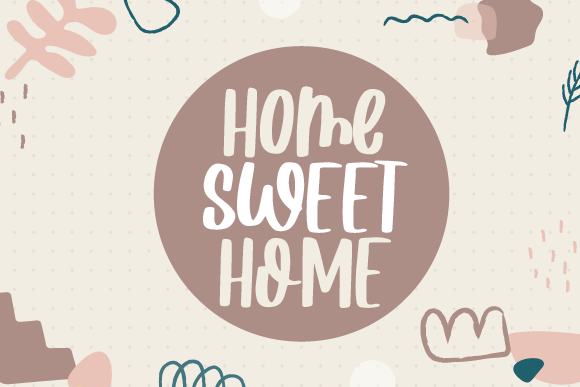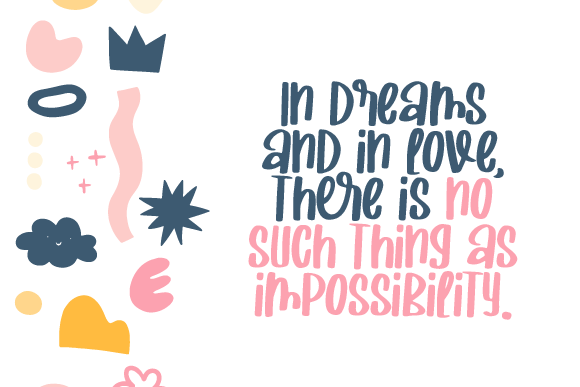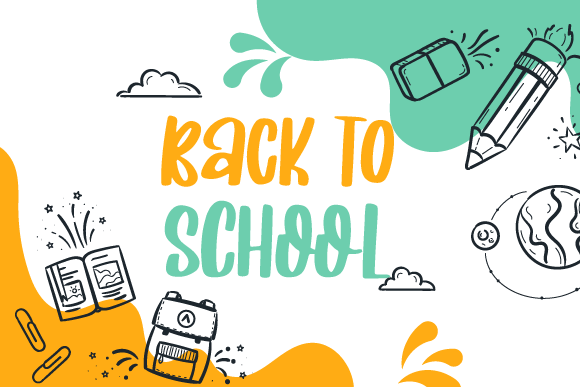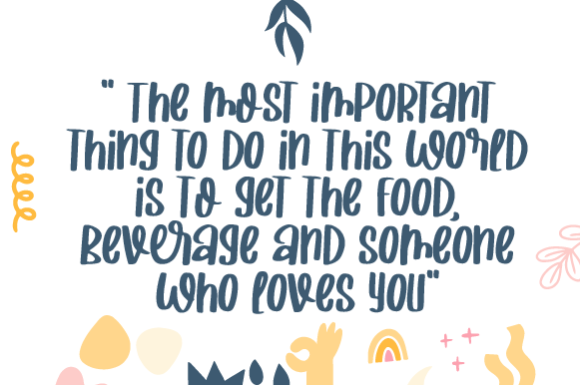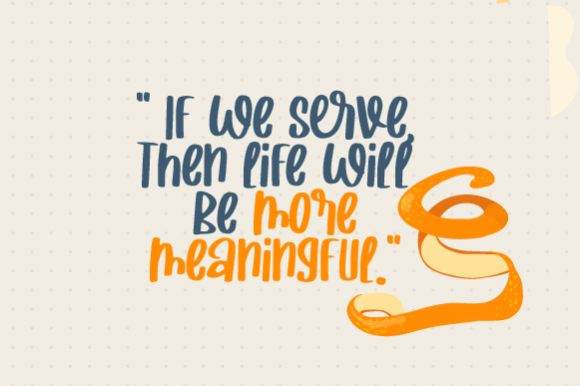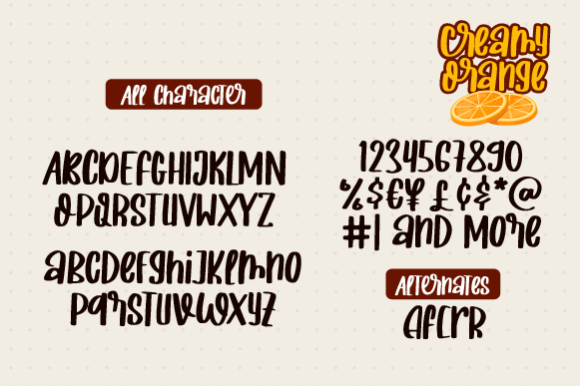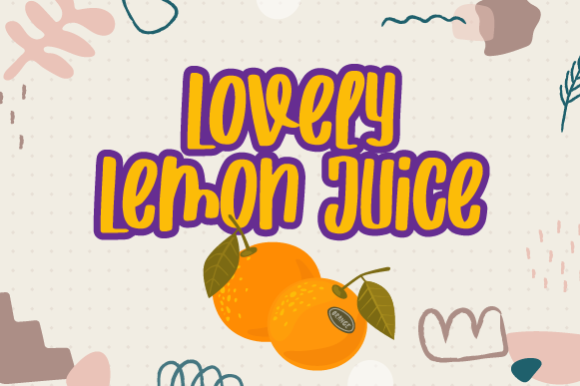
Creamy Orange Font
About Creamy Orange Font
Creamy Orange is a playful, quirky and adaptable handwritten font. Its informal style and casual vibe will make this font a go-to choice for each of the creations that require a relaxed touch.